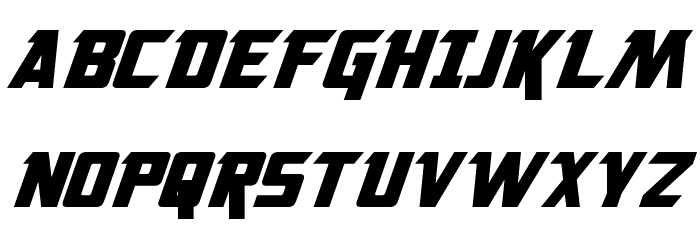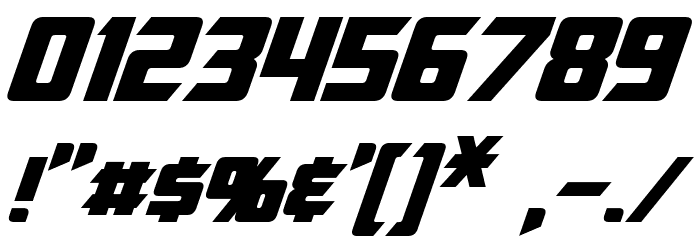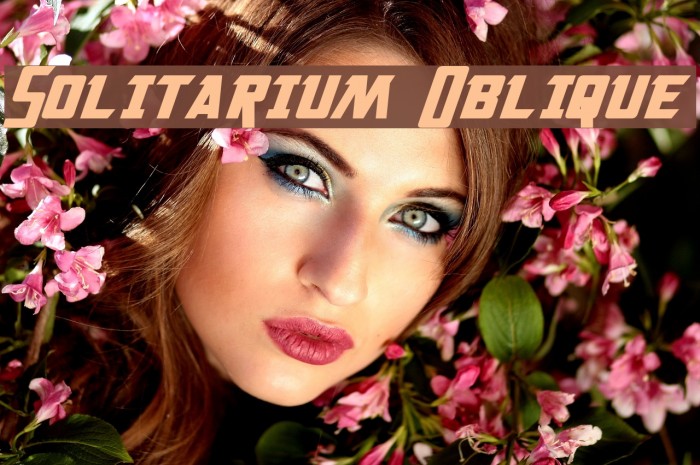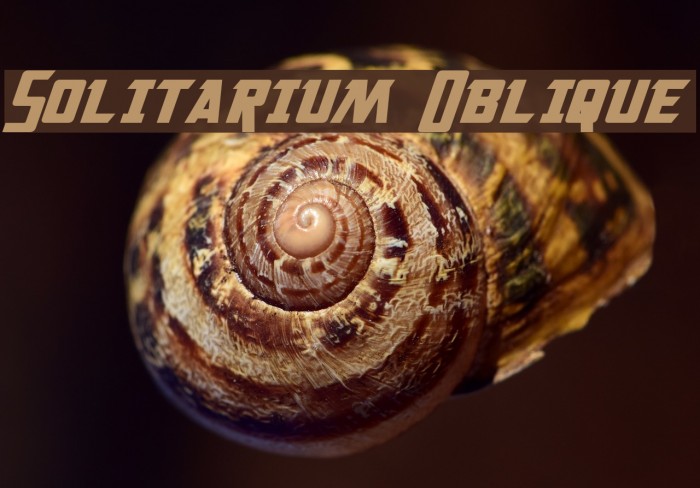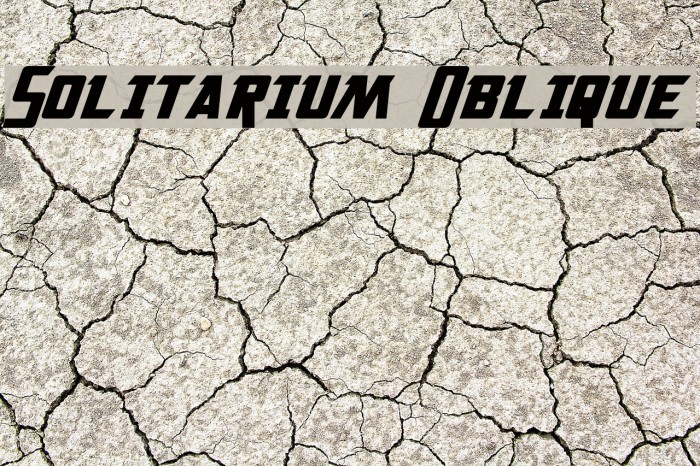
Solitarium Oblique Font
This font features a bold, angular design with a distinct oblique slant, giving it a dynamic and energetic appearance. The characters are sharply defined with a futuristic edge, making it ideal for projects that require a modern and impactful look. The uppercase and lowercase letters maintain a consistent style, with the numerals and special characters complementing the overall aesthetic. The font's strong geometric shapes and slanted orientation suggest movement and speed, making it suitable for branding, sports, or technology-related designs.
A bold, angular, and oblique font with a futuristic and dynamic style.
- Font: Solitarium Oblique
- Proposed Projects: Ideal for sports branding, technology logos, dynamic posters, and modern advertising.